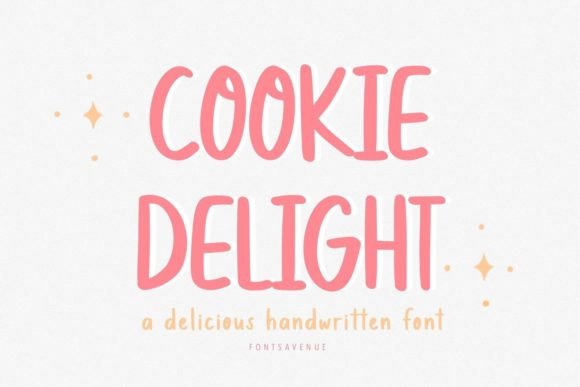
Step into a world of whimsical charm and effortless elegance with Cookie Delight Font, a captivating sans serif creation from the skilled artisans at Fonts Avenue. This handwritten masterpiece is a symphony of flowing strokes, playful curves, and delicate details, designed to infuse your creative projects with a touch of warmth, personality, and timeless appeal.
With its modern and inviting appearance, Cookie Delight Font is the perfect choice for those seeking a font that exudes a sense of approachability and charm. Its seamless flow and effortless legibility make it ideal for crafting eye-catching headlines, captivating logos, heartwarming invitations, and heartfelt quotes that resonate with your audience.
Whether you're an aspiring designer, a seasoned creative professional, or simply someone with a passion for expressing yourself through the written word, Cookie Delight Font is the perfect companion for your creative journey. Its versatility shines through in its ability to seamlessly adapt to a wide range of design aesthetics, from the playful and whimsical to the elegant and sophisticated.
Embrace the magic of Cookie Delight Font and let your creativity take center stage. Its user-friendly format and extensive character set make it a breeze to incorporate into your projects, allowing you to focus on expressing your unique vision without any technical hurdles.
So, dive into the world of Cookie Delight Font and let your imagination soar. Experience the joy of effortless creativity as you craft designs that captivate, inspire, and leave a lasting impression.